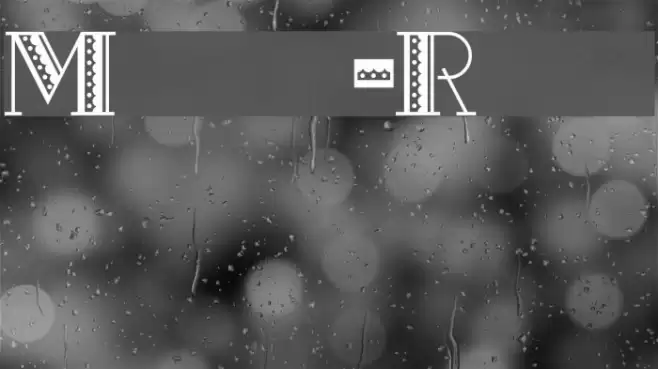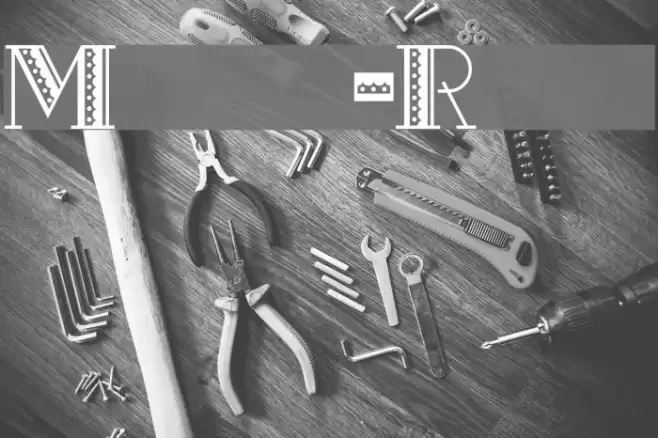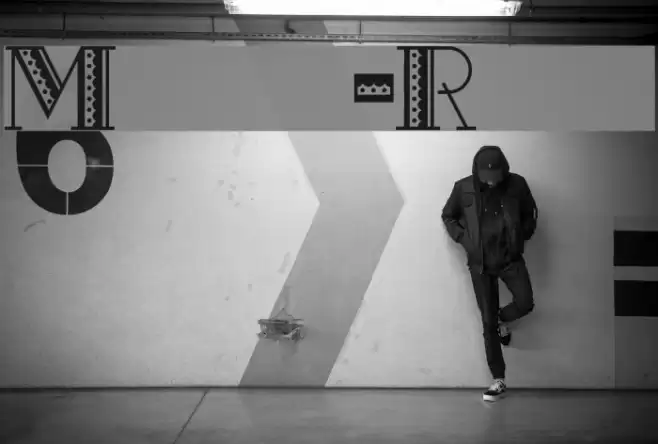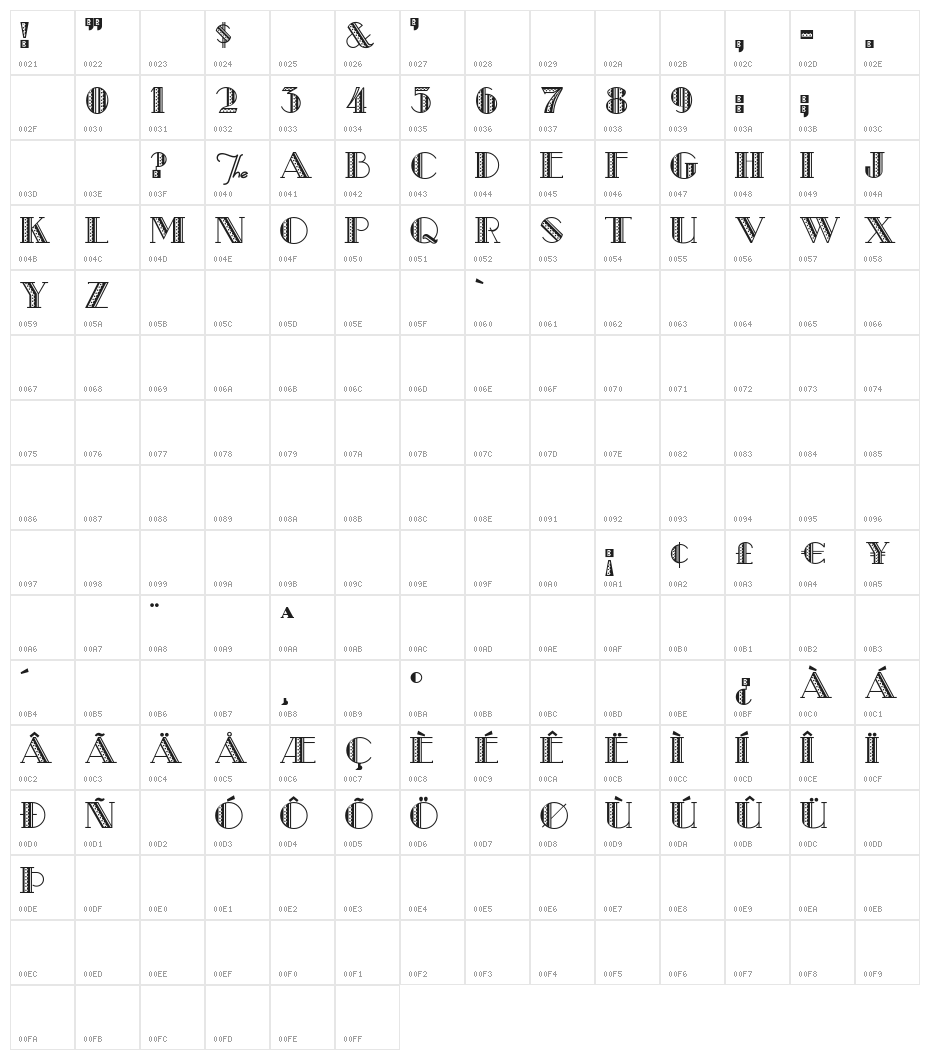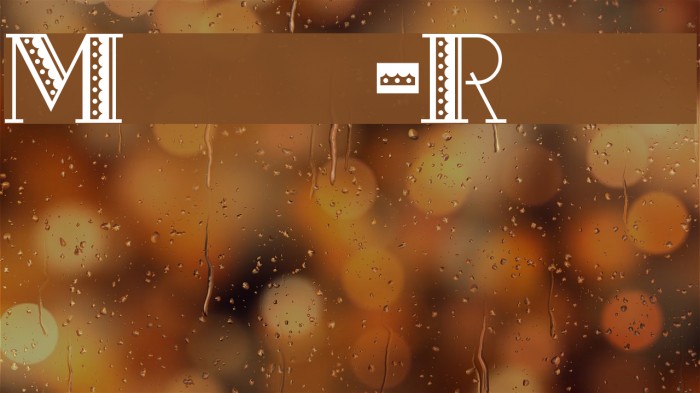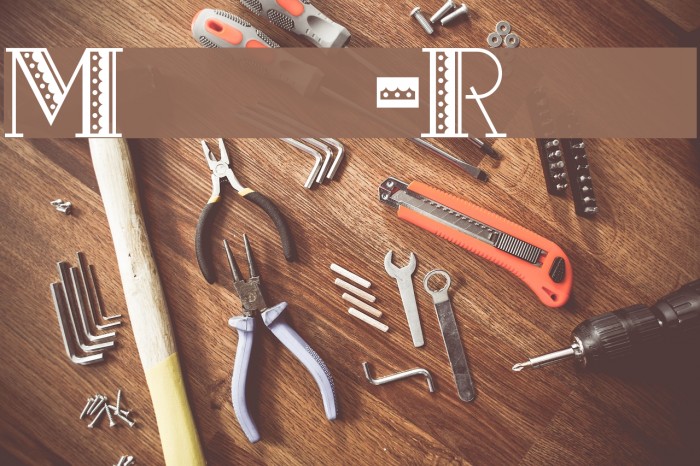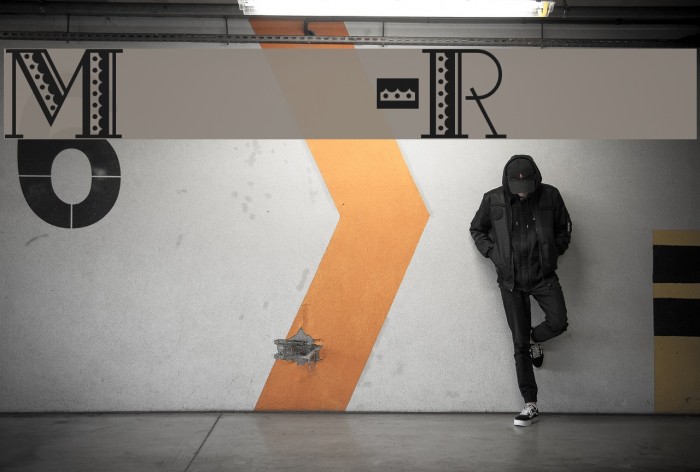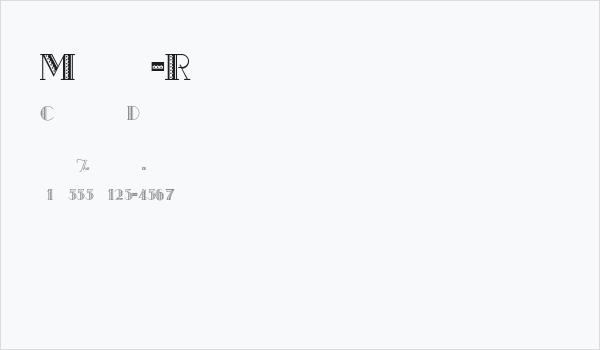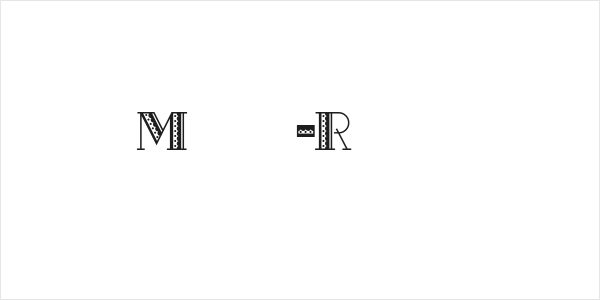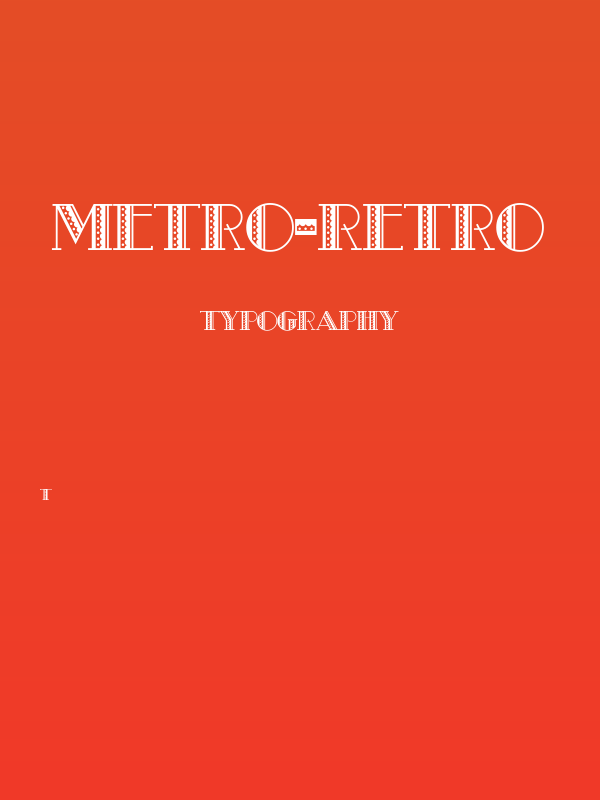
Metro-Retro Font
Metro-Retro Description
This font features a bold and decorative style with a retro flair. Each character is adorned with intricate patterns, including dots and stripes, giving it a unique and eye-catching appearance. The uppercase letters are particularly striking, with a strong geometric influence that adds to the vintage aesthetic. The numbers and special characters maintain this decorative theme, ensuring consistency throughout the font. The overall design is reminiscent of classic marquee or circus fonts, making it ideal for projects that require a touch of nostalgia and flair.
A bold, decorative font with retro patterns and geometric influences from Retro fonts.
- Proposed Projects: Ideal for vintage-themed posters, retro branding, event invitations, and decorative signage.
- Overall Style: Vintage